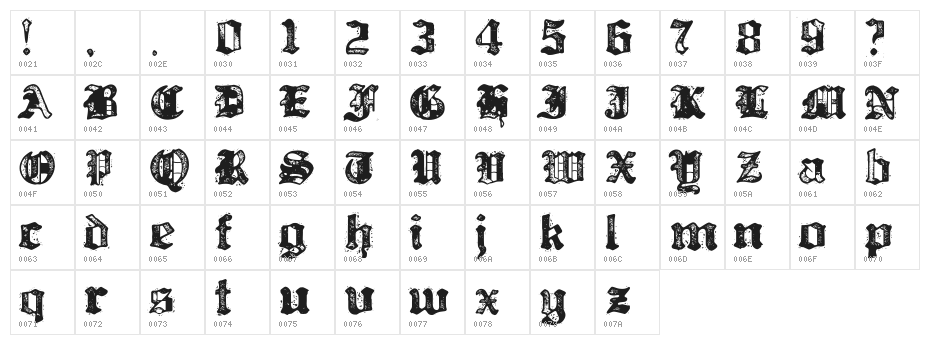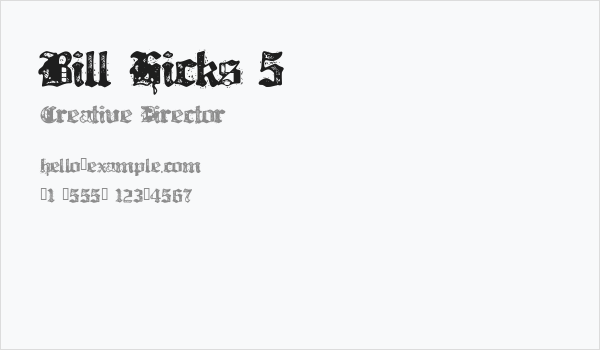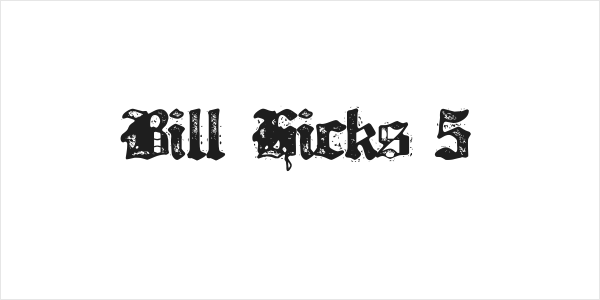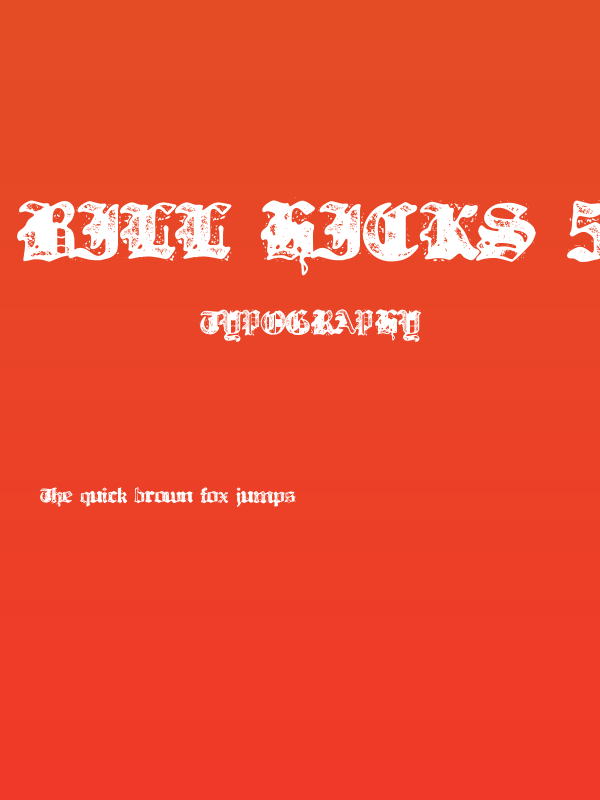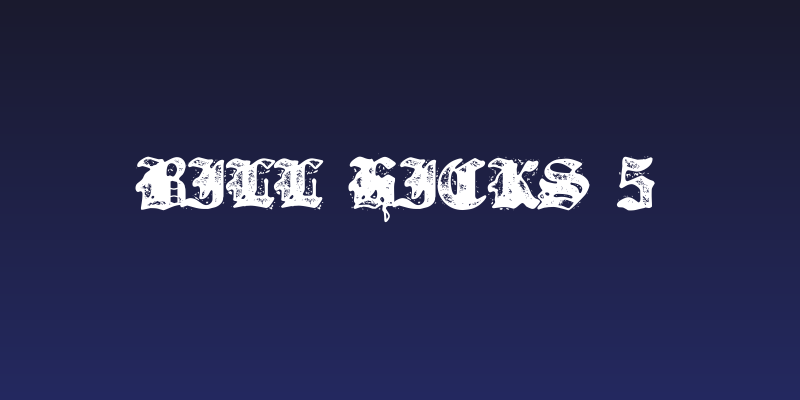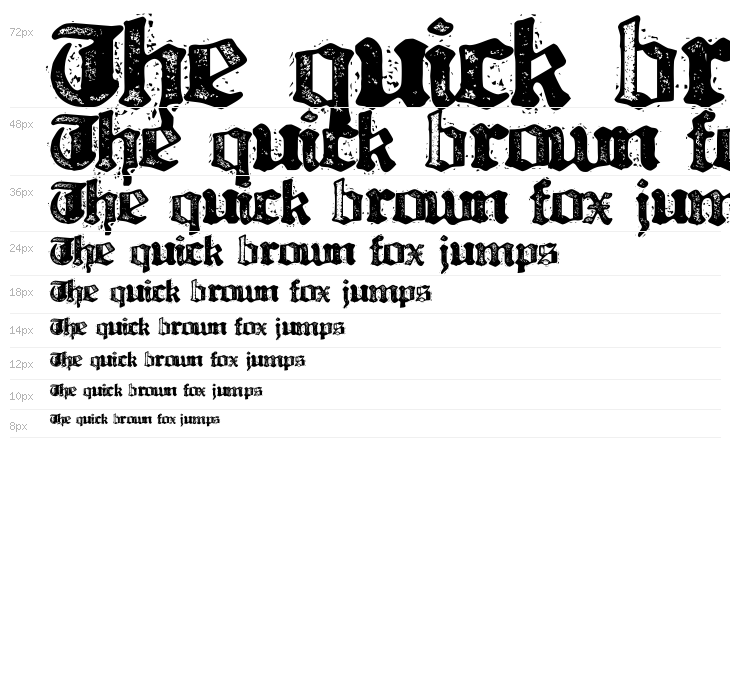
Bill Hicks 5 Font
Bill Hicks 5 Description
This font features a bold and dramatic blackletter style, characterized by its intricate and ornate letterforms. The strokes are thick and heavy, with a distressed texture that adds a vintage, grunge-like appearance. The uppercase and lowercase letters maintain a consistent style, with sharp angles and decorative elements that enhance its gothic aesthetic. The numerals and special characters follow the same design principles, ensuring a cohesive look across all characters. This font's unique style makes it stand out, ideal for projects that require a strong visual impact.
| Overall Style | Vintage, Gothic, Decorative |
| Proposed Projects | Ideal for album covers, posters, tattoo designs, and branding that seeks a gothic or vintage look. |